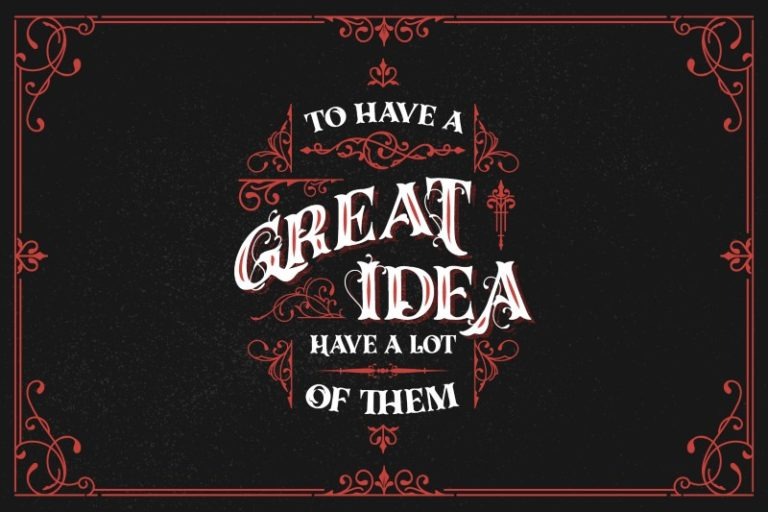
Dracolas Font
Dracolas Blackletter Font
It’s a classic blackletter typeface that looks vintage and elegant. Designed with sharp edges and looks stylish, this font is also equipped with ligature features and multilingual support. This typeface with artistic style looks very interesting for loads of different projects and promotions. A great all-in-one package for your logo, book cover, poster, t-shirt, branding, and advertisement needs.
The vintage font includes a full set of character A-Z, multi-lingual support, ligatures, swashes, numerals, and punctuation.